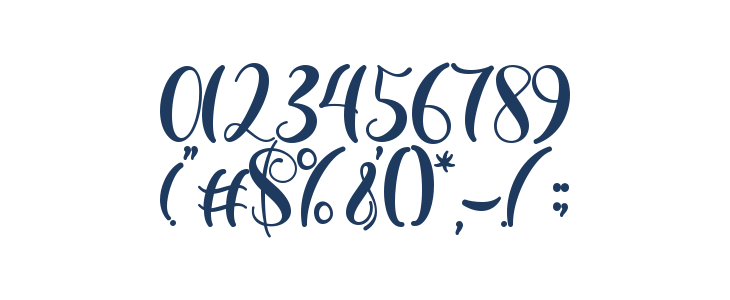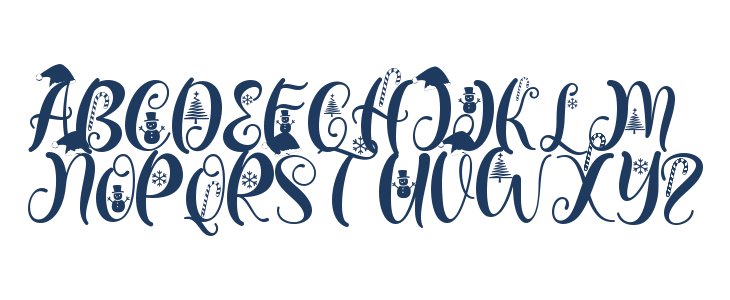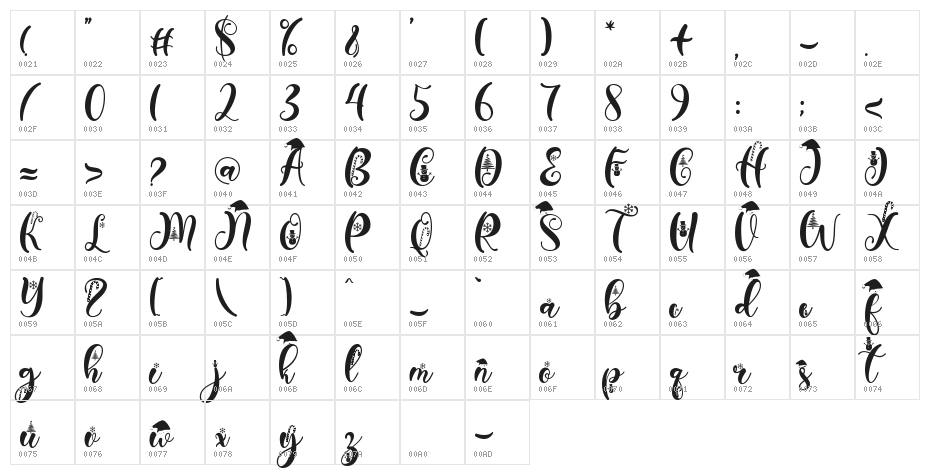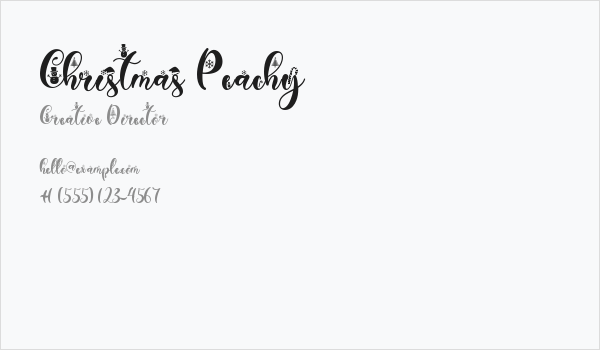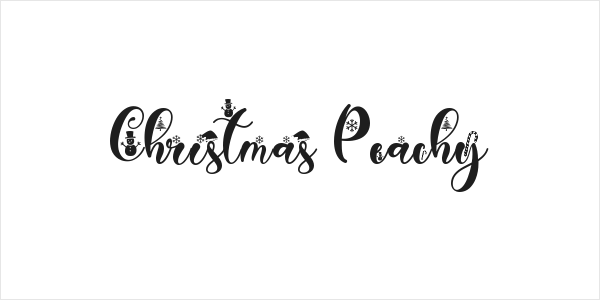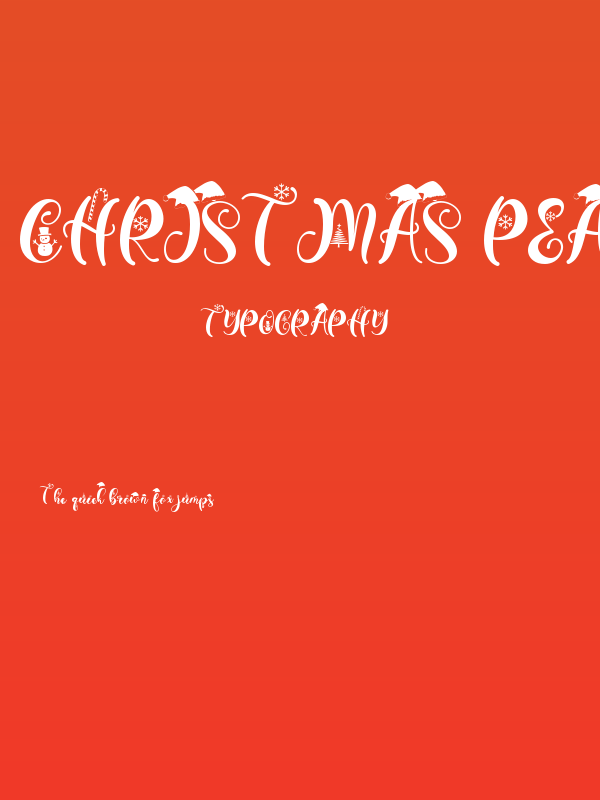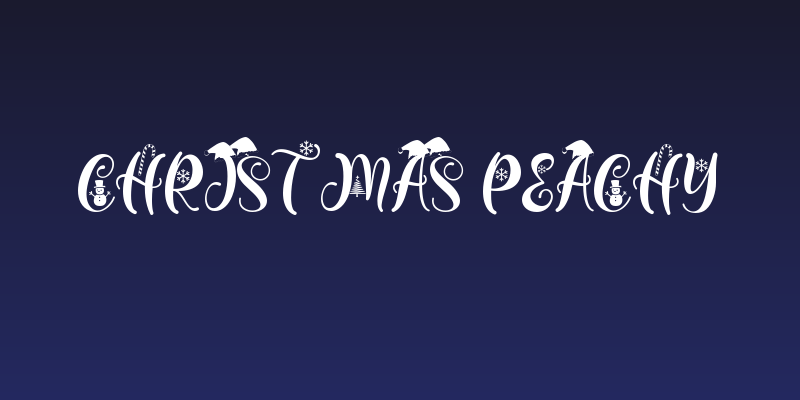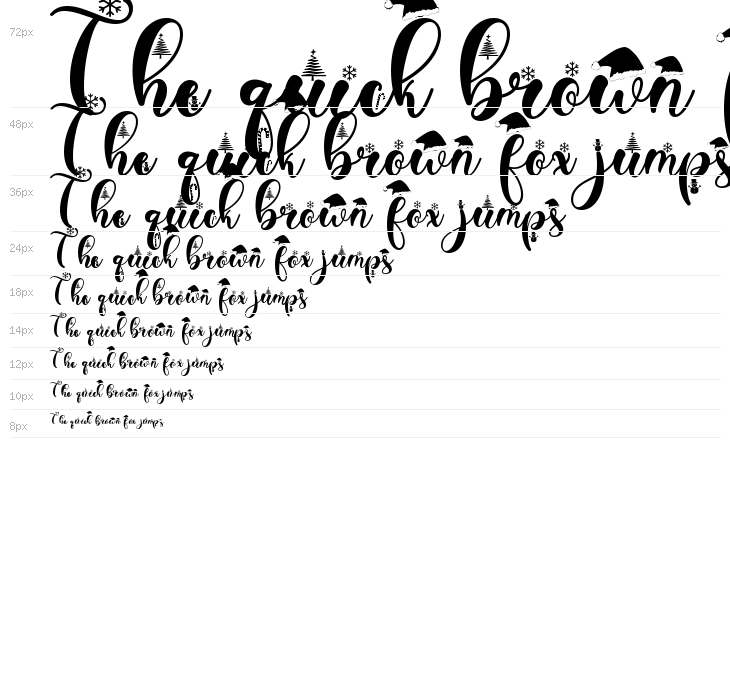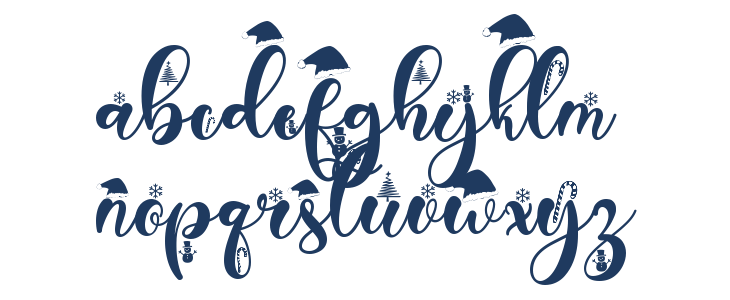
Christmas Peachy Font
Christmas Peachy Description
A playful, decorative script font featuring festive Christmas elements such as Santa hats, snowflakes, trees, and candy canes integrated into the letterforms. The strokes are bold and flowing, with a hand-lettered feel and whimsical embellishments.
| Overall Style | Decorative, Festive, Playful |
| Use Case | Headlines, Logos, Greeting cards, Posters |
| Proposed Projects | Holiday cards, Christmas party invitations, festive posters, seasonal branding, gift tags. |